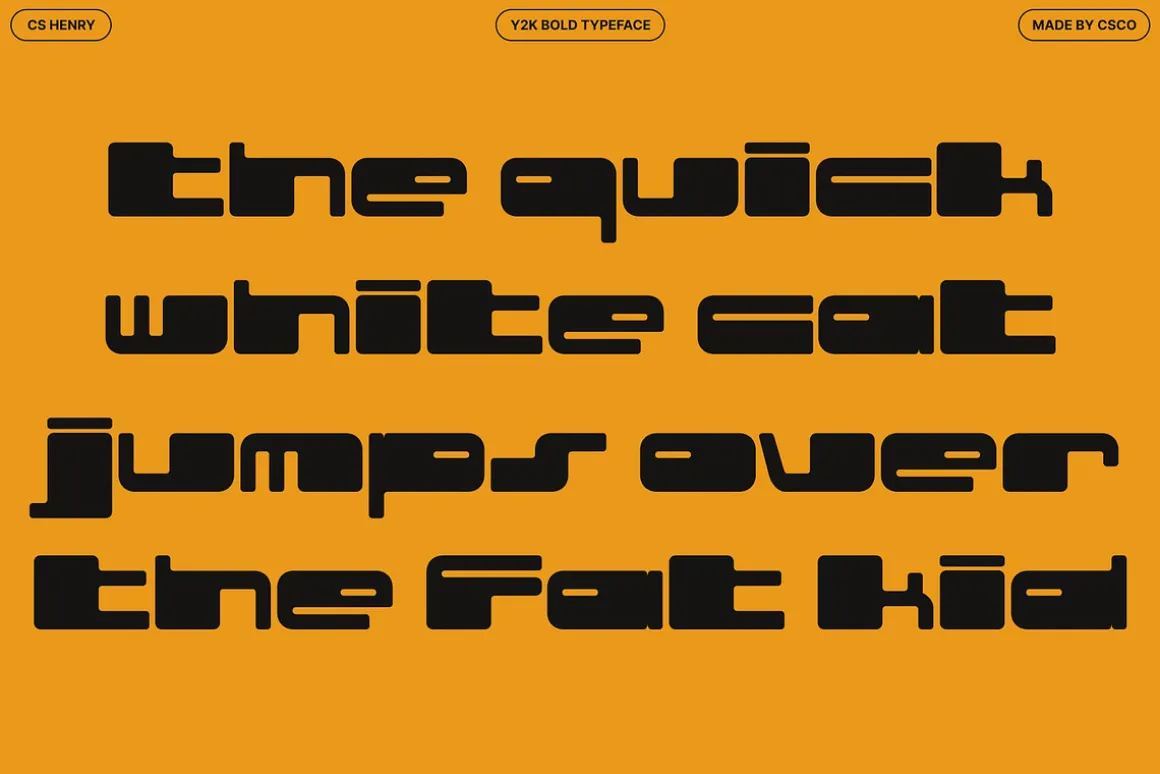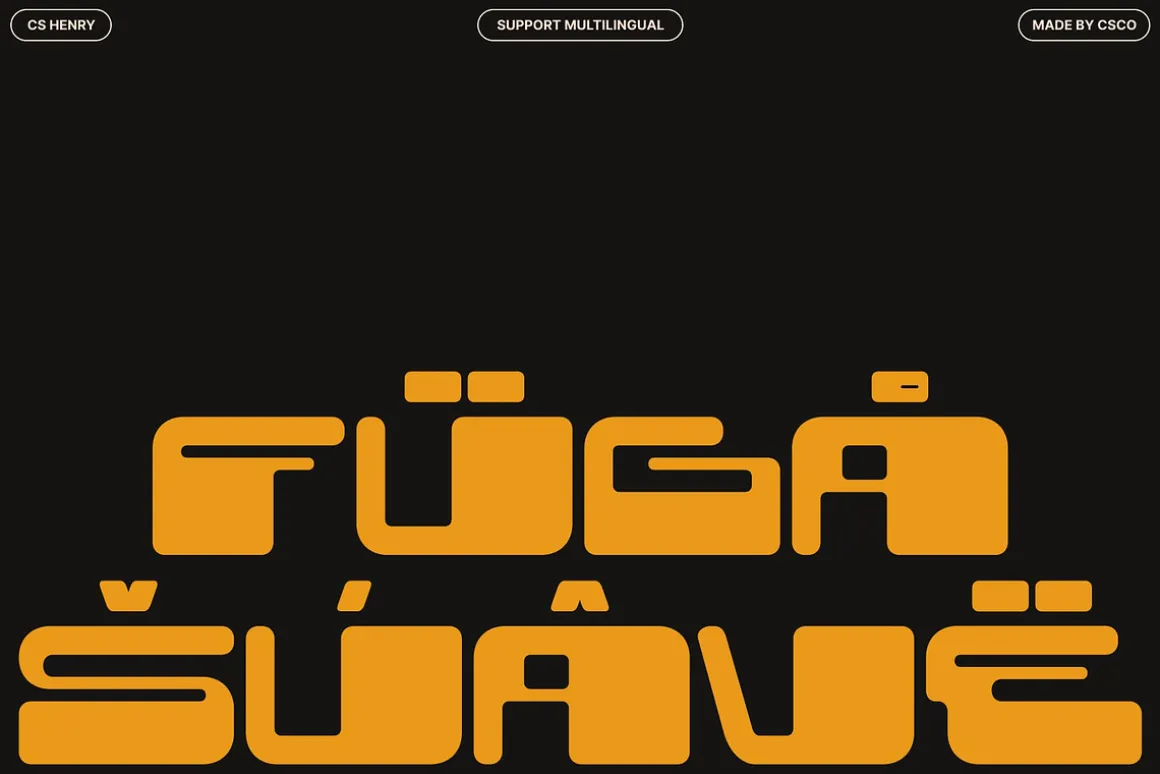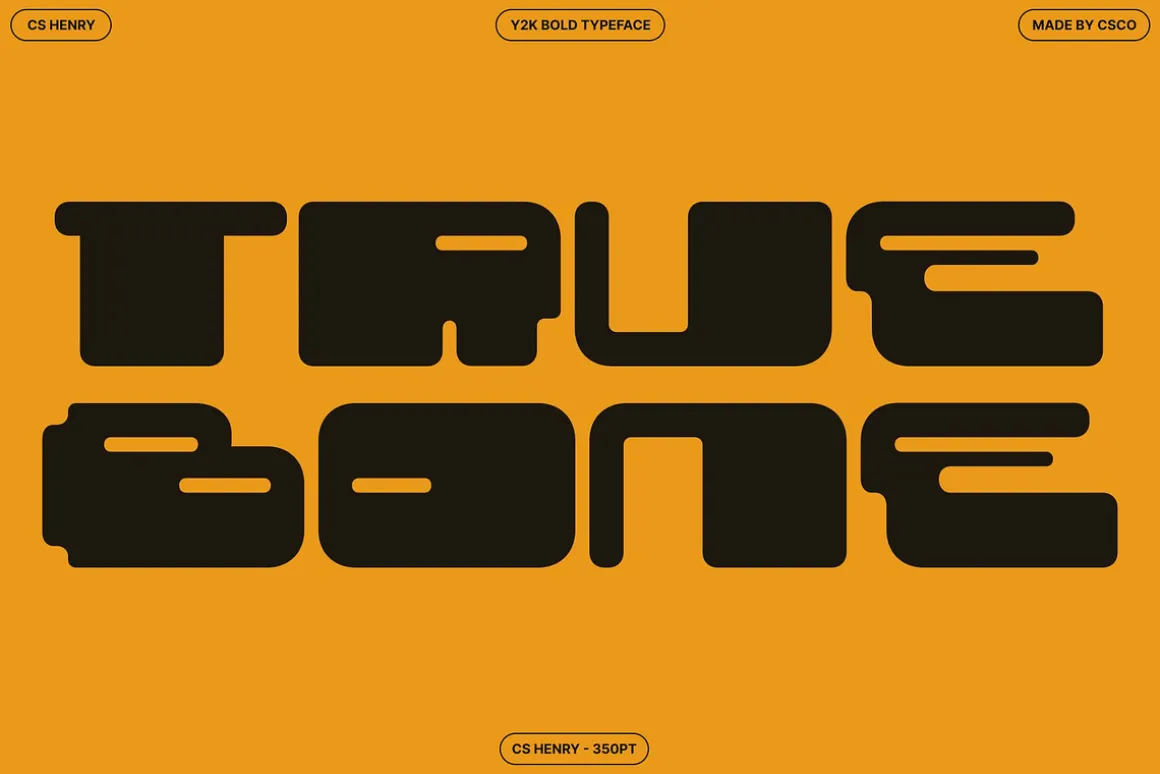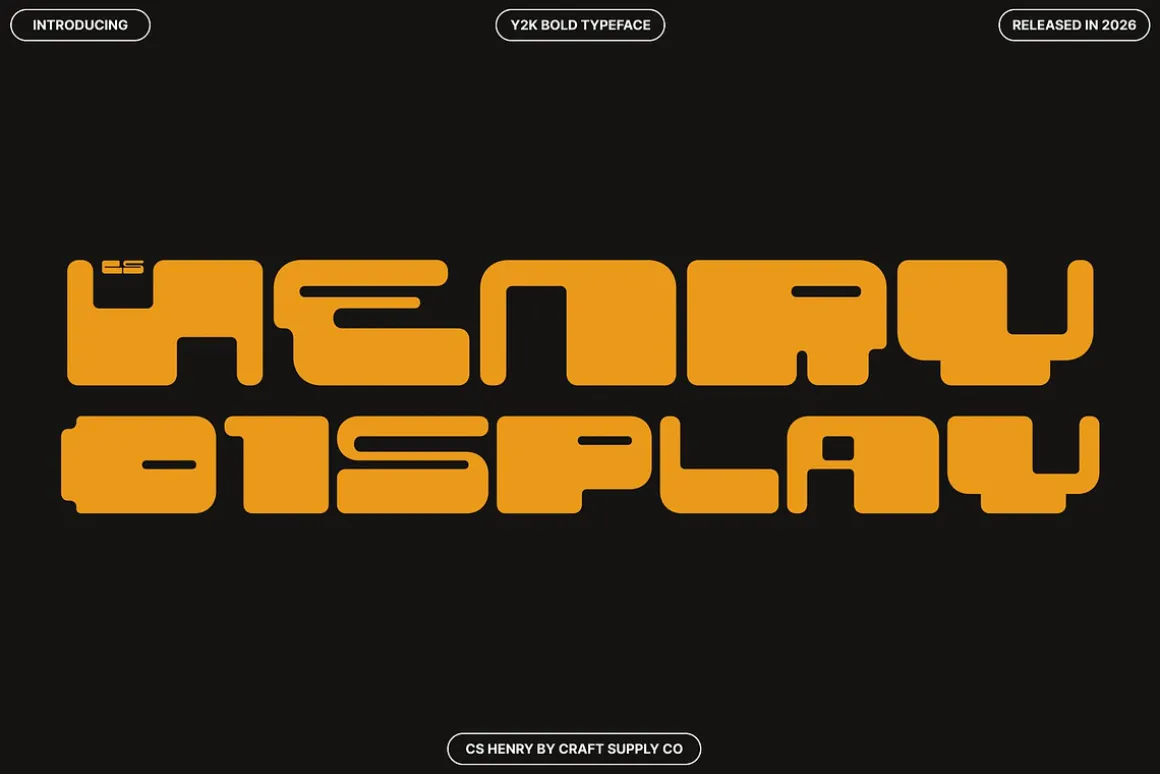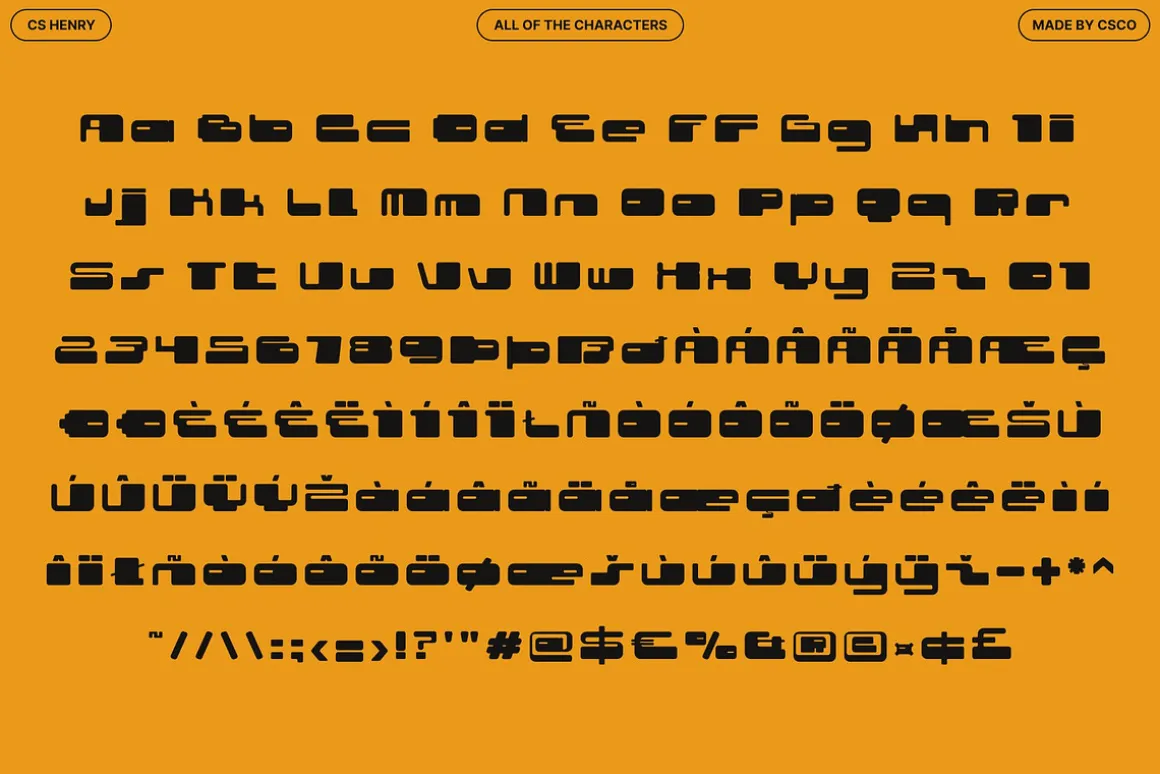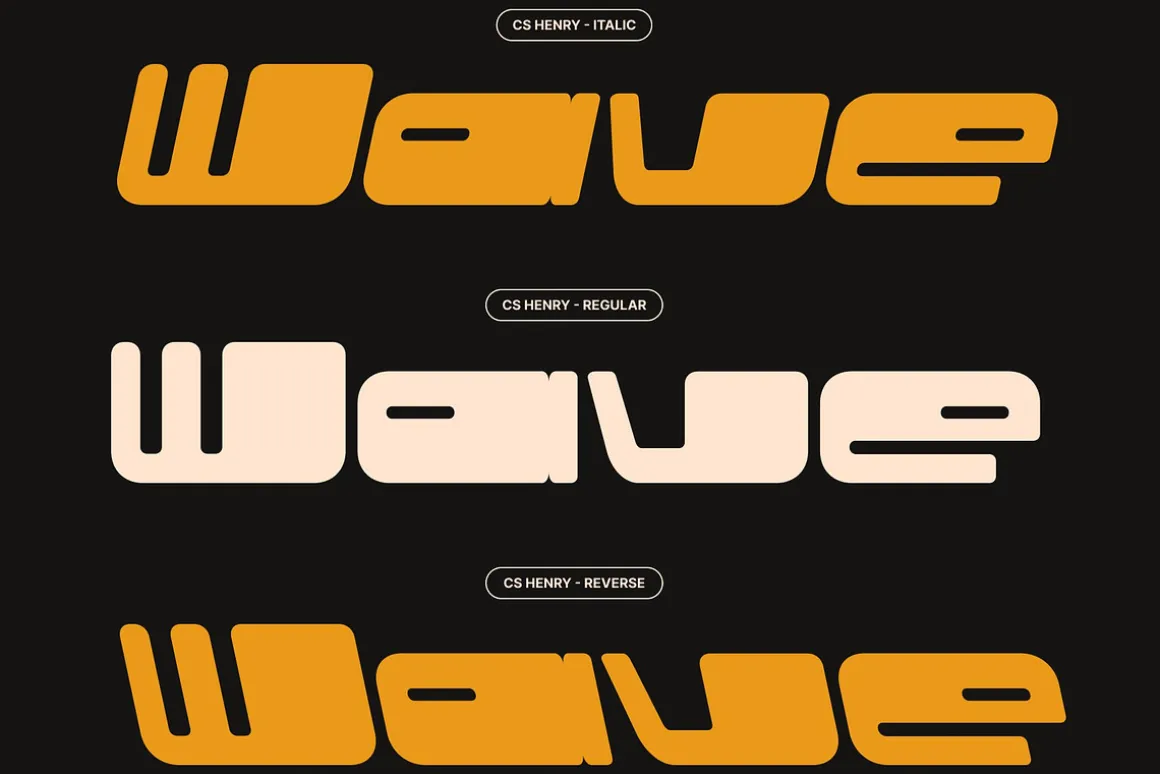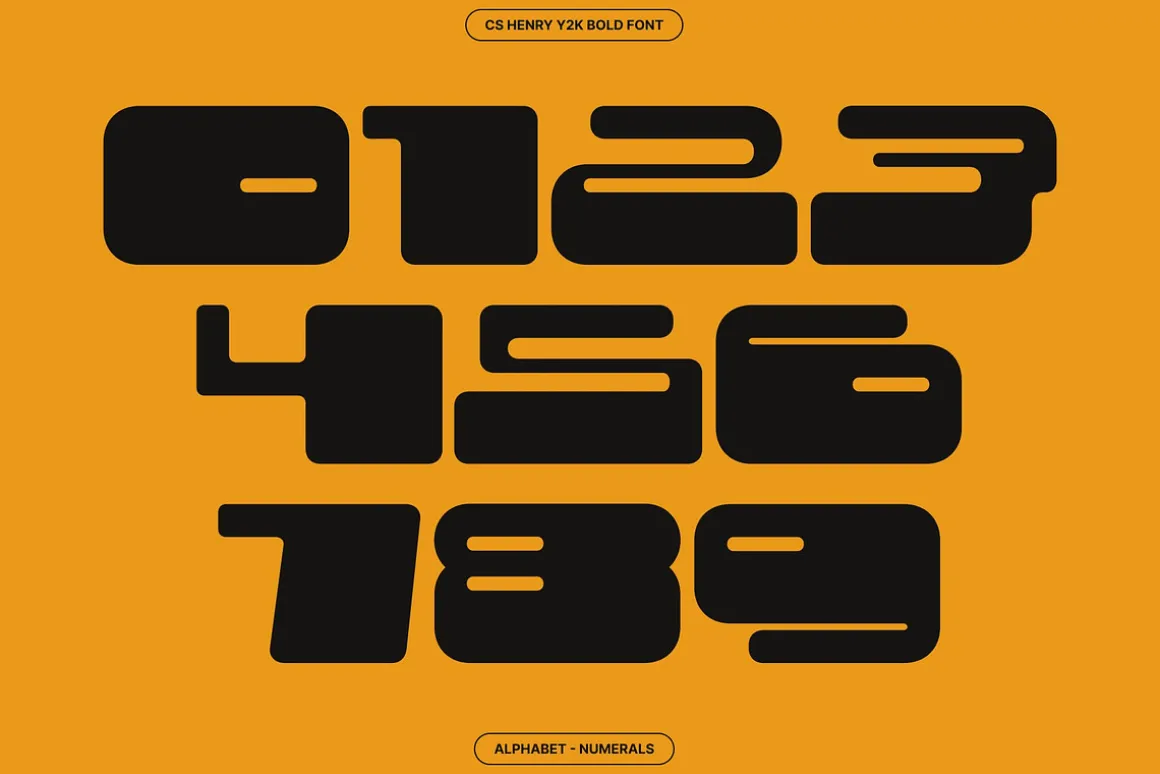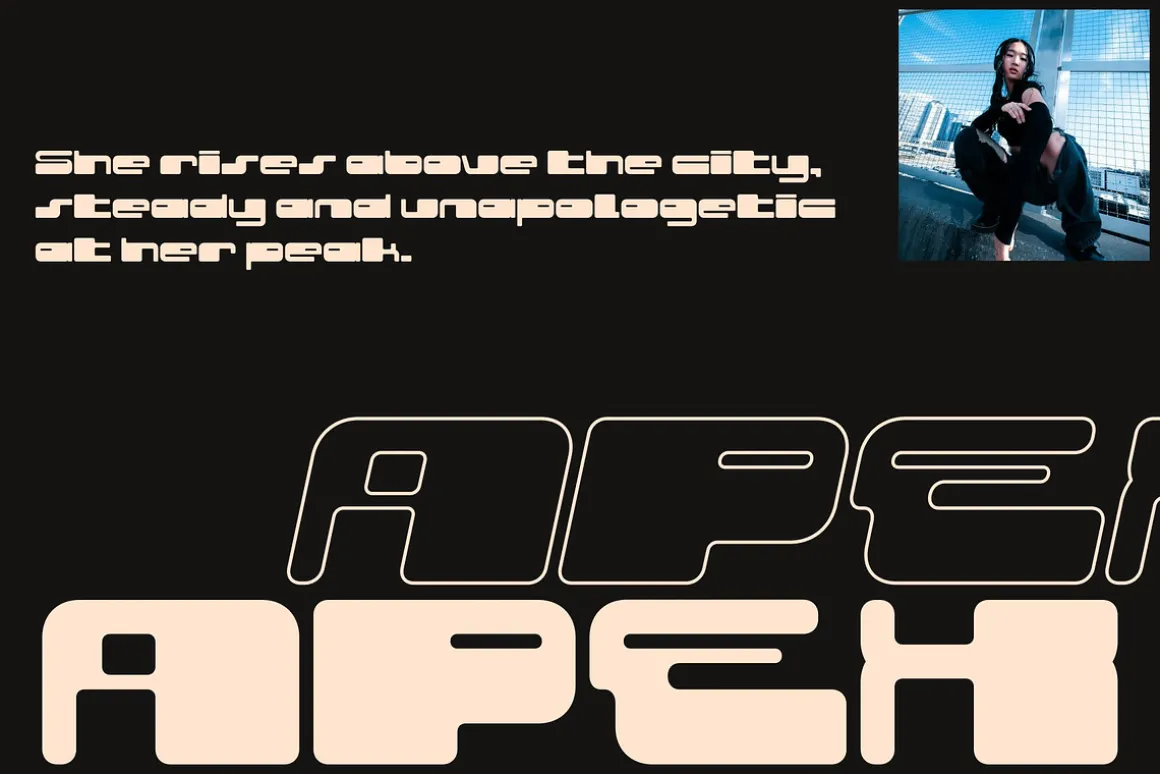
CS Henry – Y2K Display Font with Futuristic Energy
Y2K Display Font with Bold Visual ImpactThis is a Y2K-inspired display font that captures the iconic spirit of early 2000s design through bold outlines and shimmering, high-energy aesthetics. Built to stand out, this font embraces expressive forms and confident proportions that immediately draw attention. Its display-focused construction makes every word feel dynamic, loud, and visually exciting.
Shimmering Style with Futuristic AttitudeInspired by digital optimism and futuristic visuals of the Y2K era, reflects a playful yet powerful attitude. The bold outlines enhance legibility while amplifying impact, creating a striking silhouette that feels energetic and tech-forward. This shimmering, futuristic character gives the font a sense of motion and vibrancy that feels alive on screen.
Early 2000s Aesthetic with Modern AppealWhile deeply rooted in early 2000s aesthetics, this is refined for modern creative use. Its shapes feel nostalgic yet current, making it ideal for designers who want to reference retro-futurism without sacrificing clarity or relevance. The font delivers personality, confidence, and visual rhythm in every composition.
Perfect for Digital Branding and Music VisualsThis font works beautifully for digital branding, party graphics, music visuals, posters, and social media content. Whether used for event promotions, album artwork, or bold online campaigns, it delivers a futuristic, energetic presence that instantly communicates fun, creativity, and modern Y2K flair.